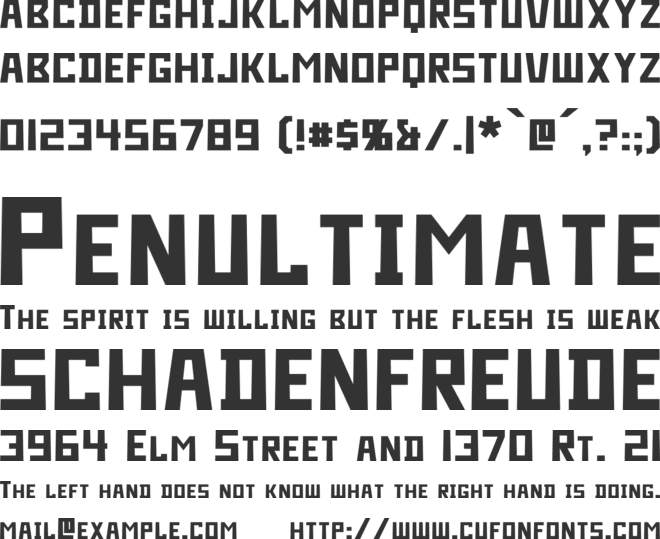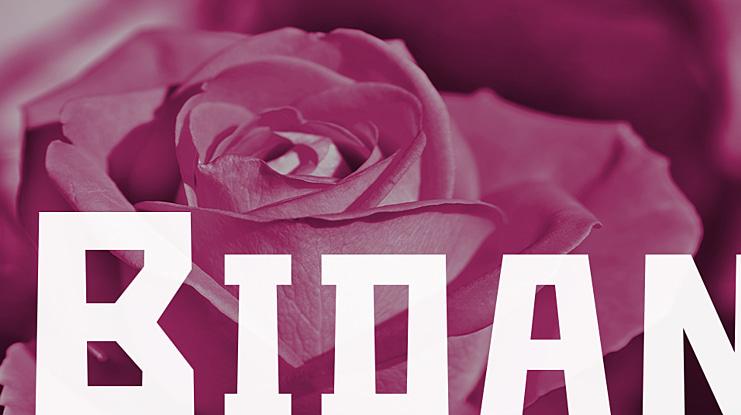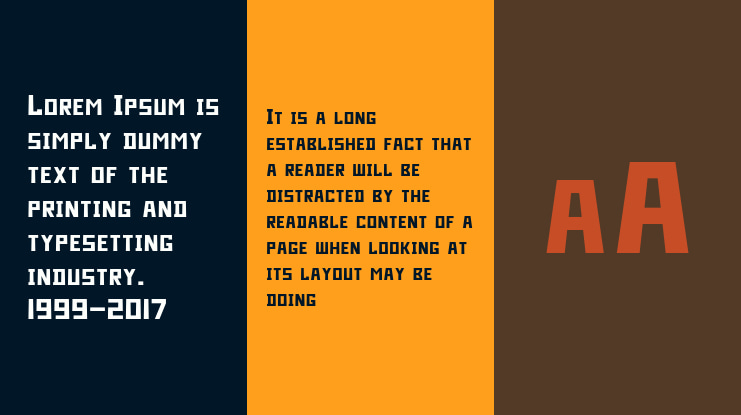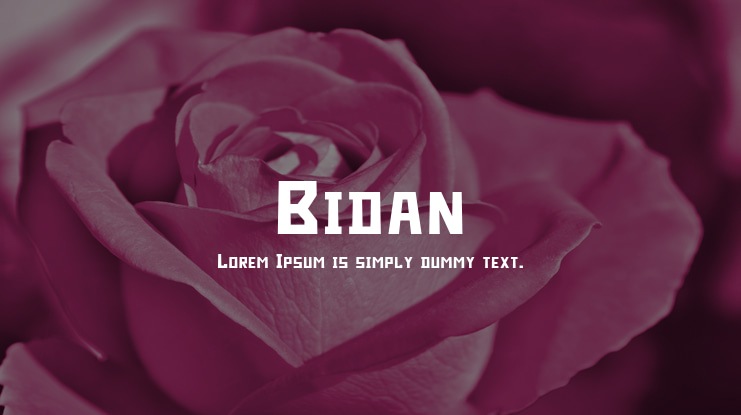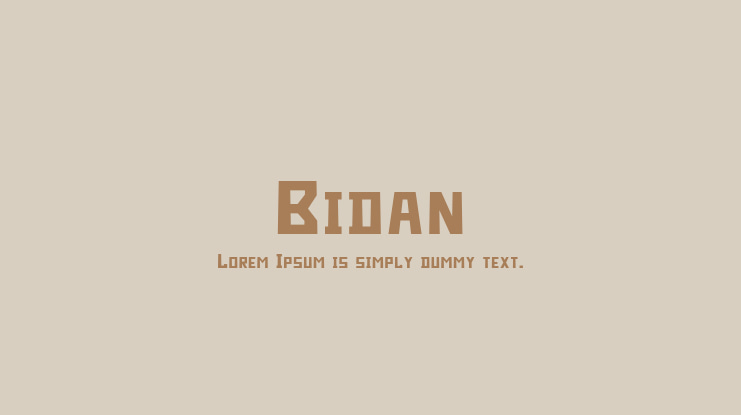
Bidan Font Family
Neale Davidson
Bidan is an angular, down-sloped face heavily based on the heading logos from Bandai’s “Dynasty Warriors: Gundam 2” video game. Includes full alphabet, extended punctuation, euro. Includes bold, italic, and bold-italic versions.